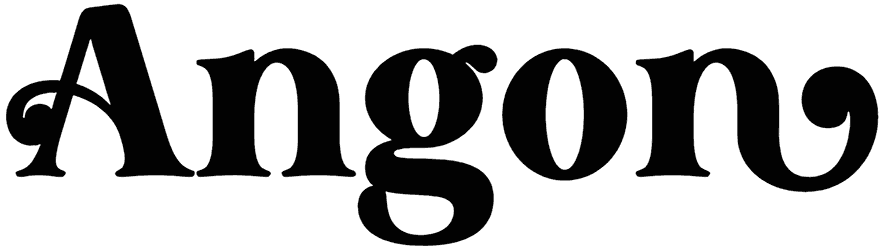
Angon Font
Do you need a classic feel and royal power to captivate your audience? So try Angon. This classic font has a developed and mature style that can successfully elevate your writing to the next level and ultimately leave a bright spot on your resume.
Any new brand that needs some boldness in designing its logo, poster, packaging, or corporate gifts can use Angon to stand out and combine beauty and readability in its content.